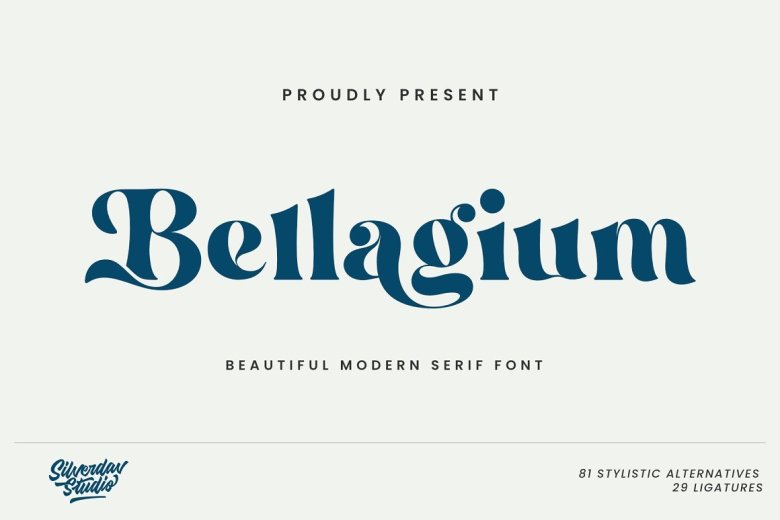
Bellagium Font
Bellagium Serif FontBellagium Font is the serif typeface that consists of three sub-families of contemporary, unique and attractive fonts, including regular, medium, and light. You can replace the fonts with tofu and your designs will look fantastic with the beautiful and creative alternates: and handligatures.
Bellagium Serif Font